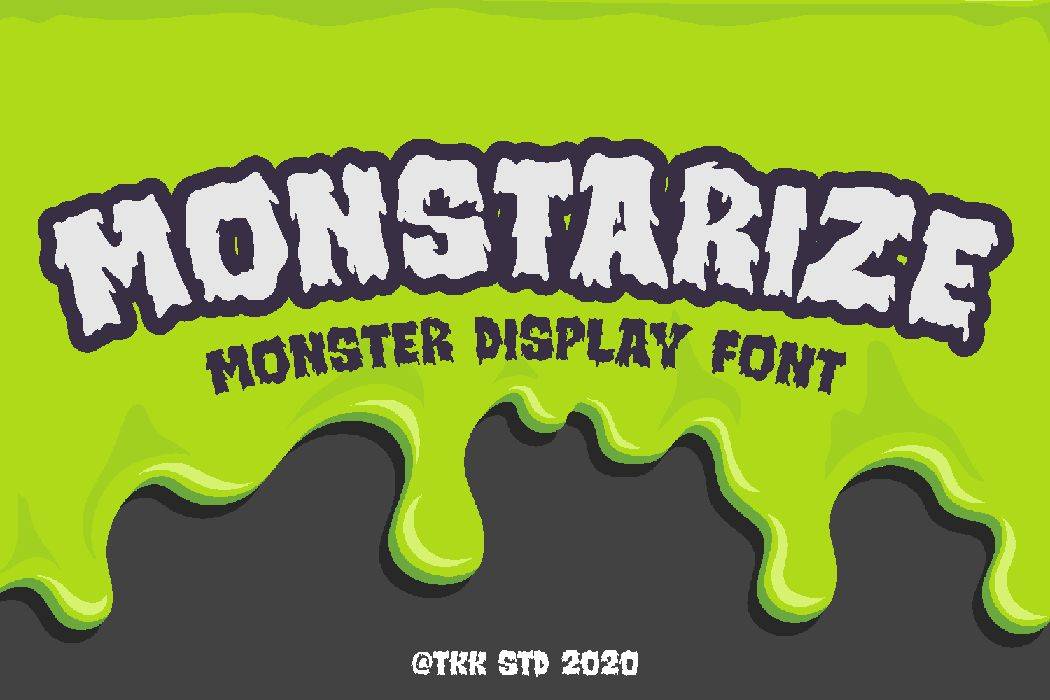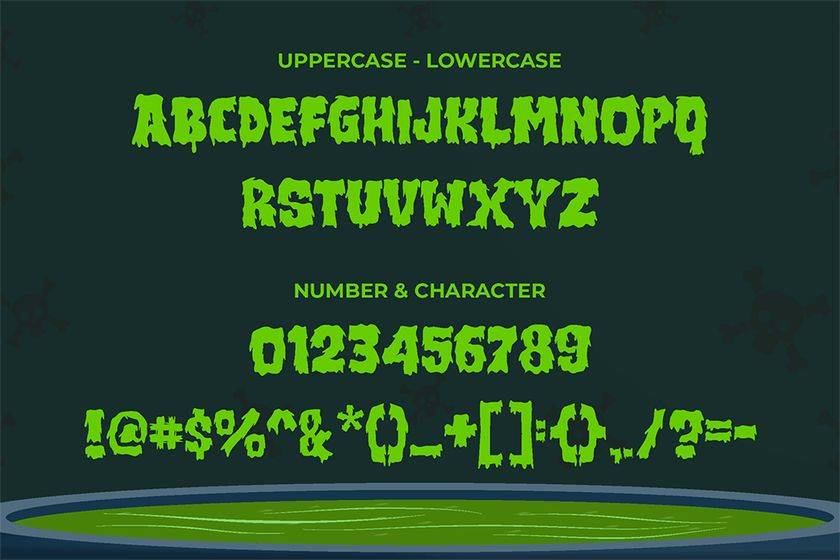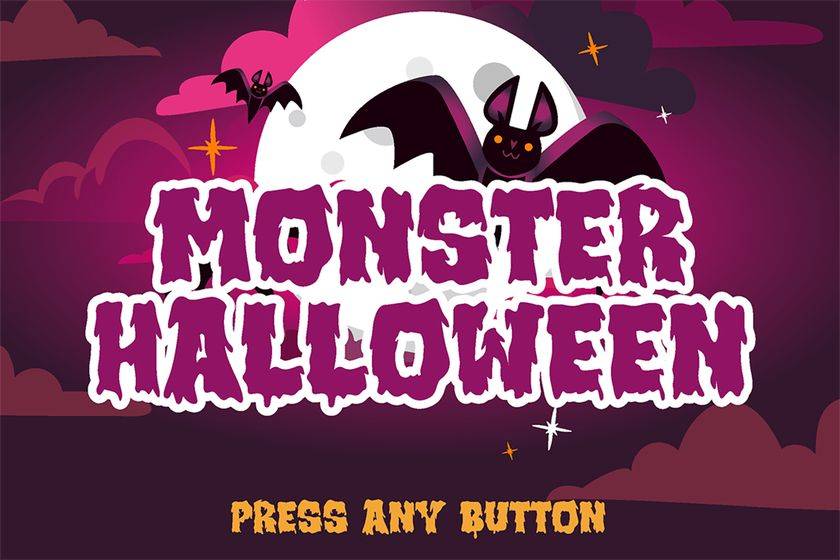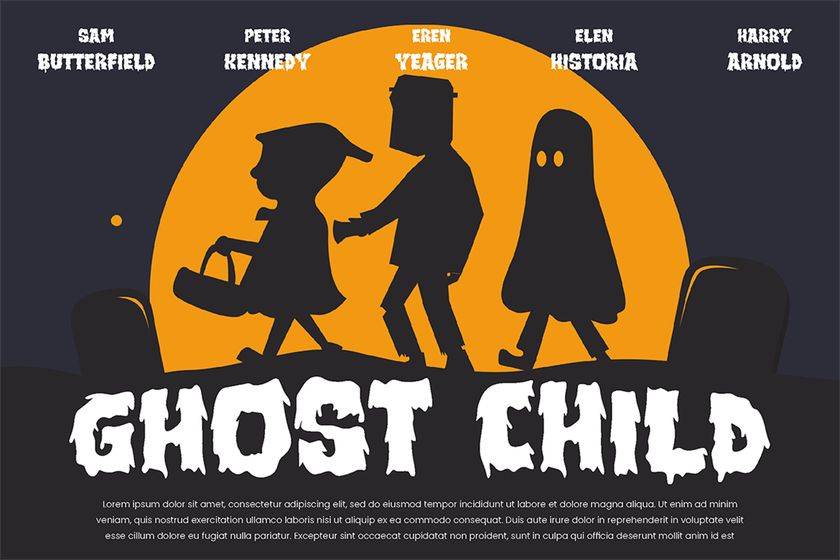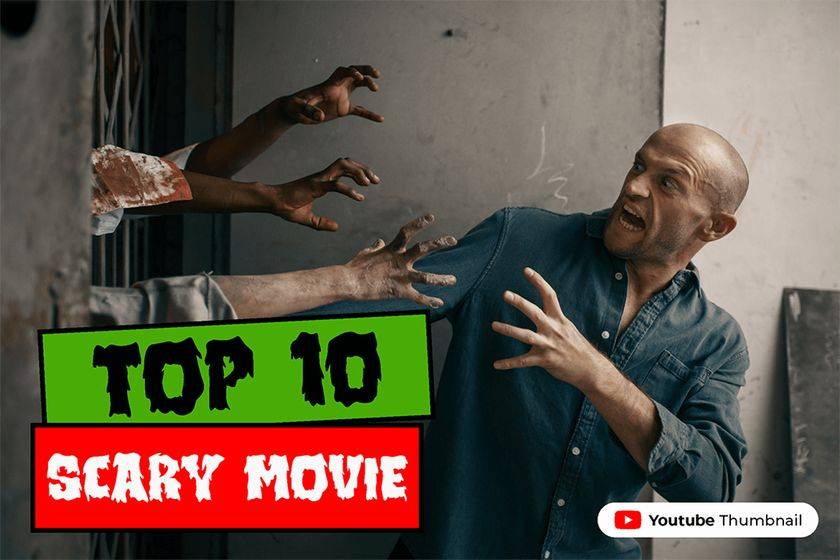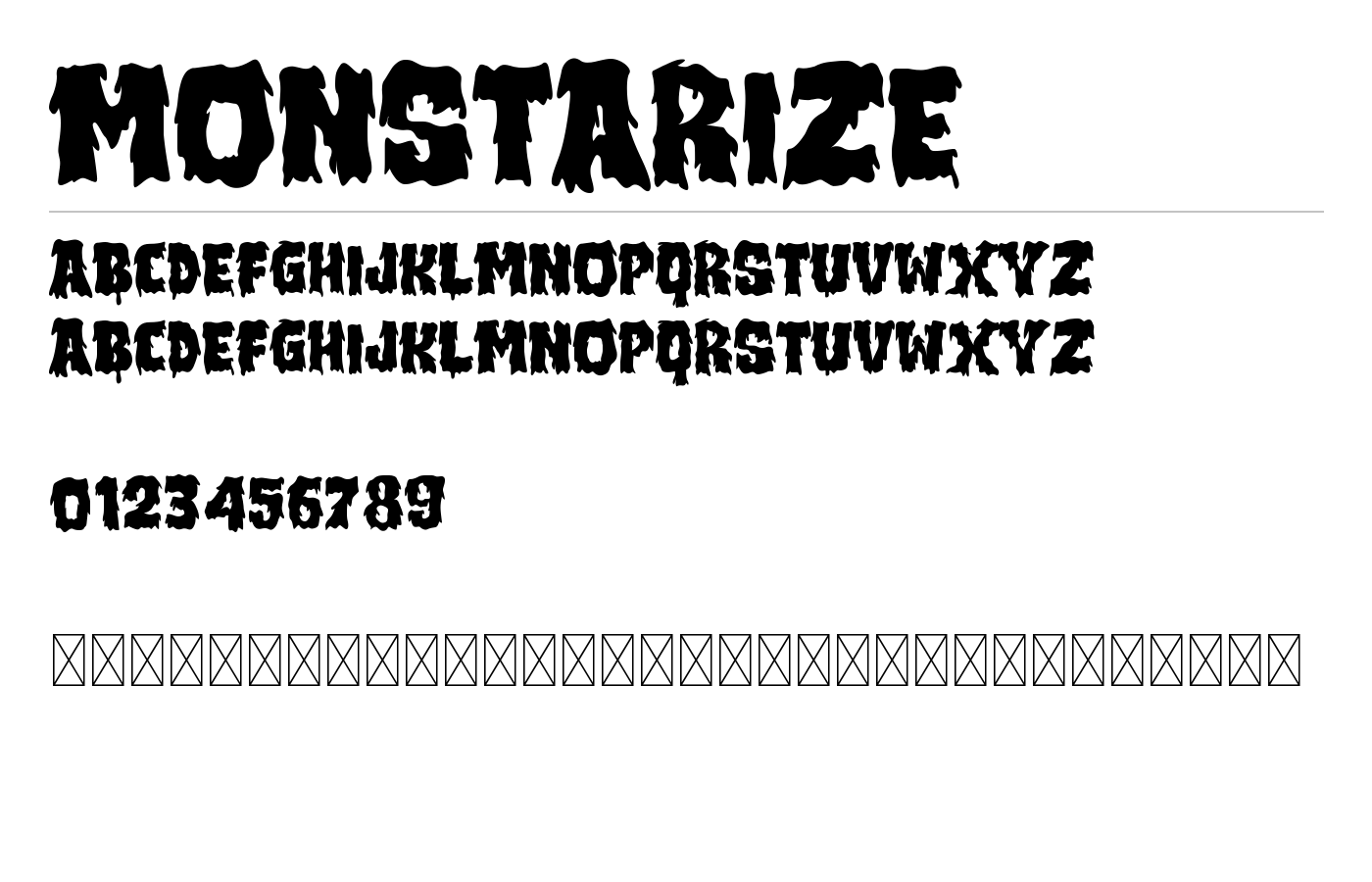
Monstarize is a bold, display-type font with a spooky, dripping effect that gives it a playful yet eerie personality. Its heavy weight and uneven, organic shapes make it perfect for Halloween-themed designs, posters, or any project needing a fun but slightly monstrous vibe. This font stands out best in headlines and logos where its strong character can grab attention and add a unique, dramatic flair.
Monstarize Font
About Monstarize Font